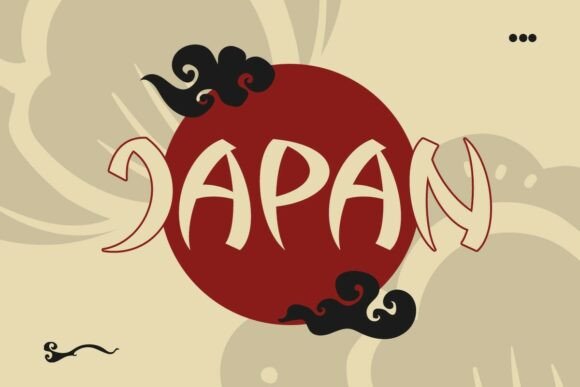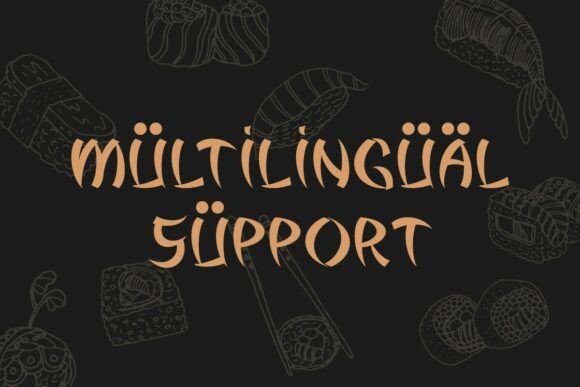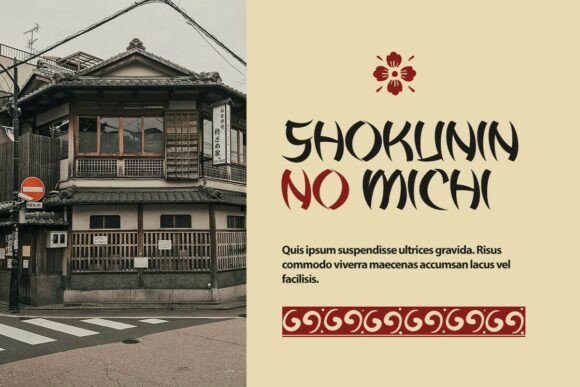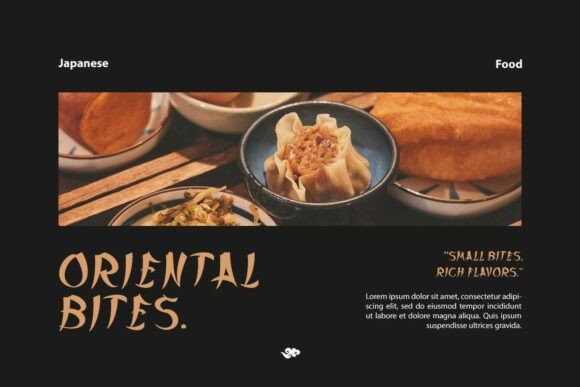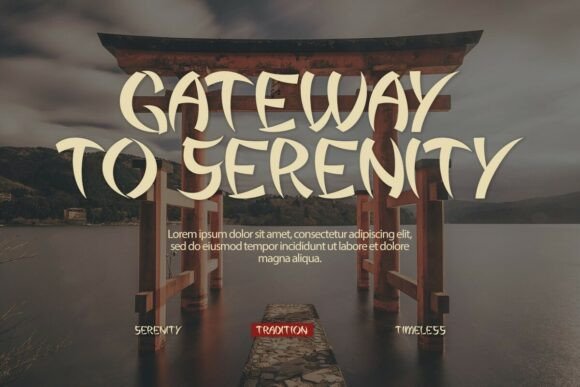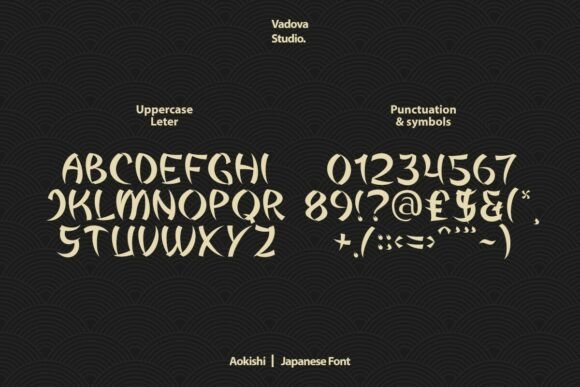
Aokishi Font: Embodying the Elegance of Japanese Culture
In the realm of typography, few fonts manage to capture the essence of a culture as elegantly as the Aokishi Japanese Creative Font. This exquisite font is a masterful blend of traditional Japanese calligraphy and modern sophistication, making it an ideal choice for designers seeking to infuse their projects with a sense of refined heritage and cultural depth.
The Essence of Aokishi Font
Aokishi Font is more than just a typographic creation; it is an artistic expression that embodies the serene beauty and precision of Japanese artistic traditions. Each character is meticulously crafted to reflect the elegance and sophistication inherent in Japanese calligraphy, while also incorporating a modern aesthetic that ensures versatility and broad appeal.
Characteristics of Aokishi Font
- Elegant and Refined Aesthetic: Aokishi Font boasts a sleek and refined appearance, making it perfect for designs that require a touch of sophistication and elegance.
- Traditional yet Modern: It seamlessly blends traditional Japanese calligraphic elements with a contemporary twist, ensuring it remains relevant and appealing to modern tastes.
- Cultural Authenticity: For designers looking to convey a sense of cultural authenticity and heritage, Aokishi Font is an excellent choice, as it accurately represents the artistic traditions of Japan.
- Versatility: Its sophisticated yet dynamic energy makes it suitable for a wide range of design projects, from luxury branding and editorial design to packaging and digital media.
Applications of Aokishi Font
The versatility of Aokishi Font makes it an invaluable asset for designers across various disciplines. Here are some of the key areas where this font truly shines:
- Branding and Logo Design: For brands aiming to evoke a sense of luxury, tradition, and sophistication, Aokishi Font offers a unique opportunity to stand out with a distinctive and memorable identity.
- Editorial and Magazine Design: Its elegant and refined aesthetic makes it perfect for use in editorial projects, such as magazines, newspapers, and books, where typography plays a crucial role in conveying the tone and style of the content.
- Packaging Design: For product packaging that requires a touch of elegance and cultural sophistication, Aokishi Font can help create visually appealing and distinctive designs.
- Digital Media: Whether it’s for website headers, mobile app interfaces, or social media assets, Aokishi Font’s modern aesthetic ensures it can be effectively used in digital projects to enhance user experience.
Tips for Using Aokishi Font
To maximize the impact of Aokishi Font in your designs, consider the following tips:
- Pair with Complementary Fonts: When combining Aokishi Font with other typefaces, choose fonts that complement its elegance and sophistication, ensuring a harmonious visual flow.
- Adjust Line Spacing and Kerning: Pay attention to line spacing and kerning to maintain the flow and readability of the text, especially in longer pieces of content.
- Experiment with Colors: While Aokishi Font looks stunning in traditional black and white, don’t be afraid to experiment with colors that resonate with your brand or design theme.
Aokishi Japanese Creative Font stands out as a remarkable typographic achievement, offering designers a unique tool to convey elegance, cultural authenticity, and sophistication. Its blend of traditional Japanese aesthetics with modern refinement makes it a versatile and valuable asset for a wide range of design projects. Whether you’re aiming to create a luxurious brand identity, design an elegant editorial layout, or craft compelling digital content, Aokishi Font provides the perfect blend of artistic tradition and contemporary appeal.
For designers and crafters looking to imbue their work with a sense of refined heritage and subtle cultural depth, Aokishi Font is undoubtedly a choice worth considering. Its ability to evoke the serene beauty and precision of Japanese culture, combined with its modern aesthetic, makes it an exceptional addition to any designer’s typographic arsenal.